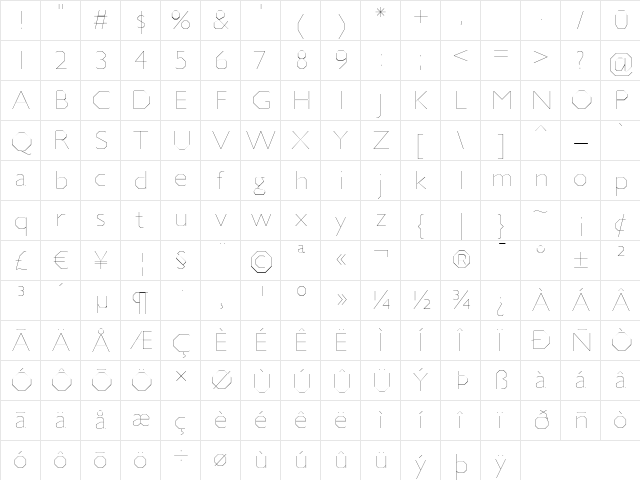
Jillican UltraLight Regular
Design Context for Jillican UltraLight Typeface
Jillican UltraLight takes a measured approach to typography — its balanced proportions and neutral character make it a reliable workhorse for both digital and print work. Its slender proportions lend an understated elegance to any composition.